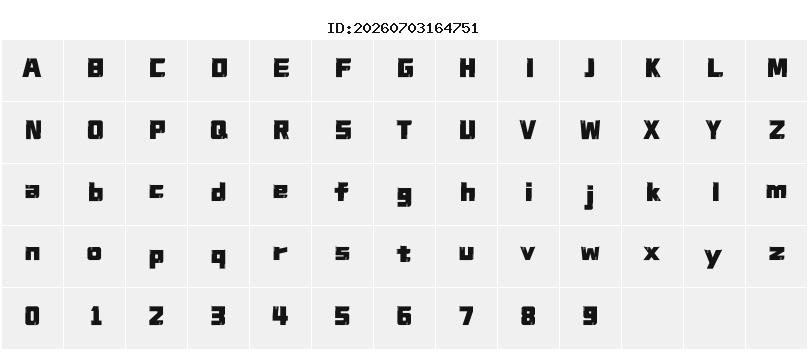
• Font Name: 399-上首曙光体
• Manufacturer: 上首造字
399-上首曙光体.ttf is a modern, elegant sans-serif font designed for ultimate readability and visual harmony. Perfect for branding, headlines, web design, and print materials.